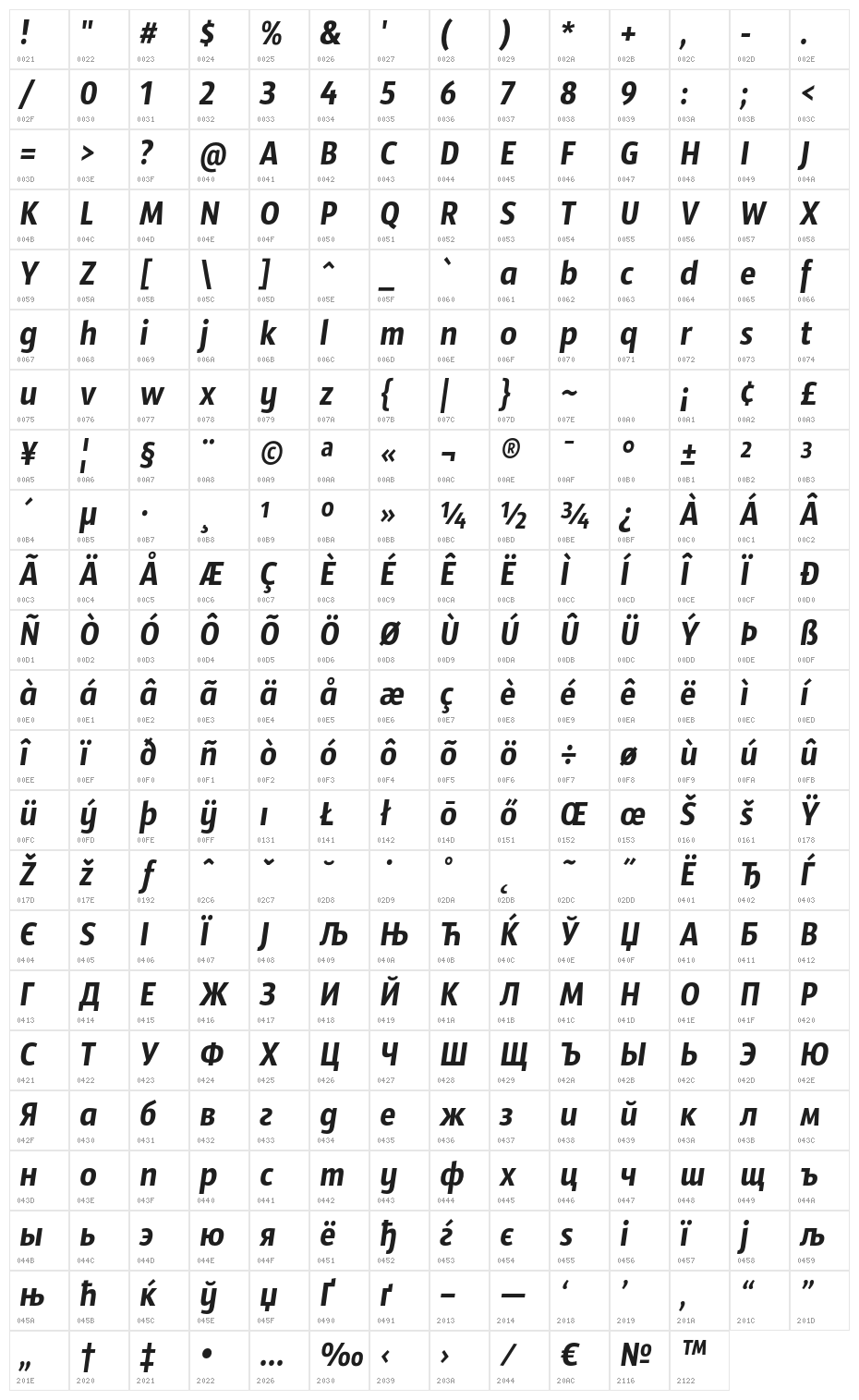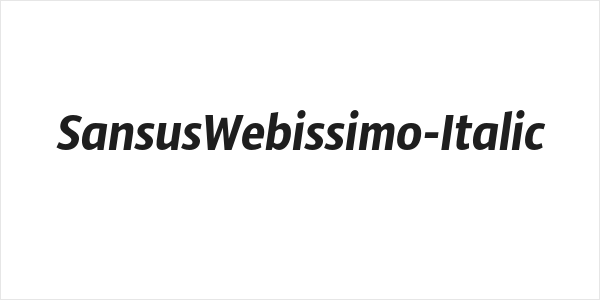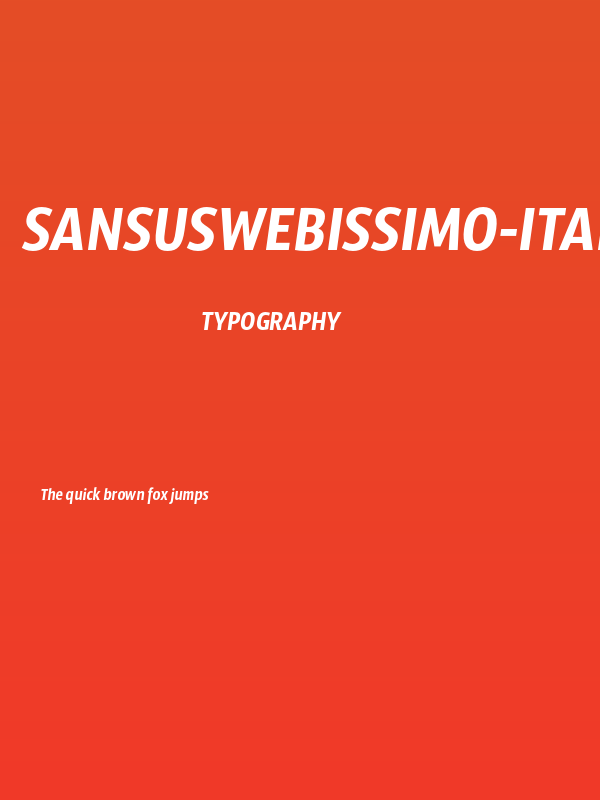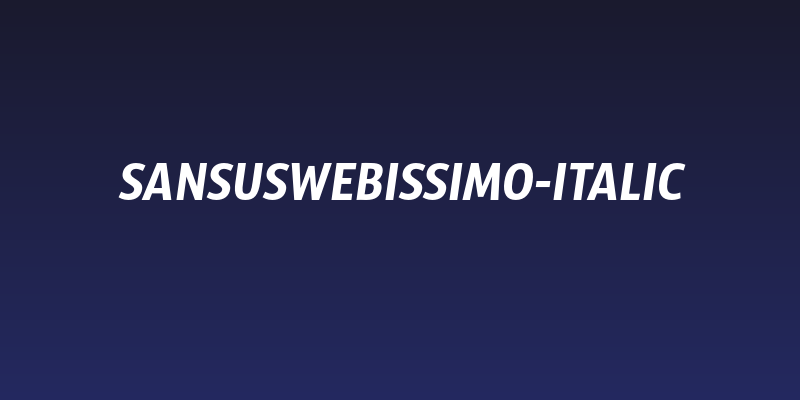
SansusWebissimo-Italic Font
SansusWebissimo-Italic Description
This font presents a sleek and modern appearance with a distinct italic style. The characters are slightly slanted, giving it a dynamic and forward-moving feel. The strokes are consistent and smooth, with a medium weight that ensures readability while maintaining a stylish look. The font features a sans-serif design, characterized by clean lines and a lack of decorative elements, making it versatile for various applications. The character spacing is normal, providing a balanced and harmonious text flow. This font is suitable for both digital and print media, offering a professional yet approachable aesthetic.
| Proposed Projects | Ideal for branding, advertising, web design, and editorial layouts. |